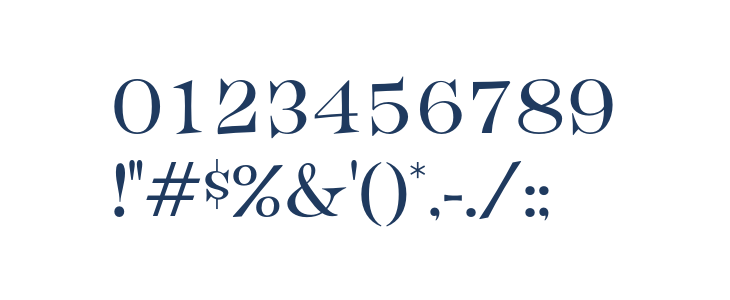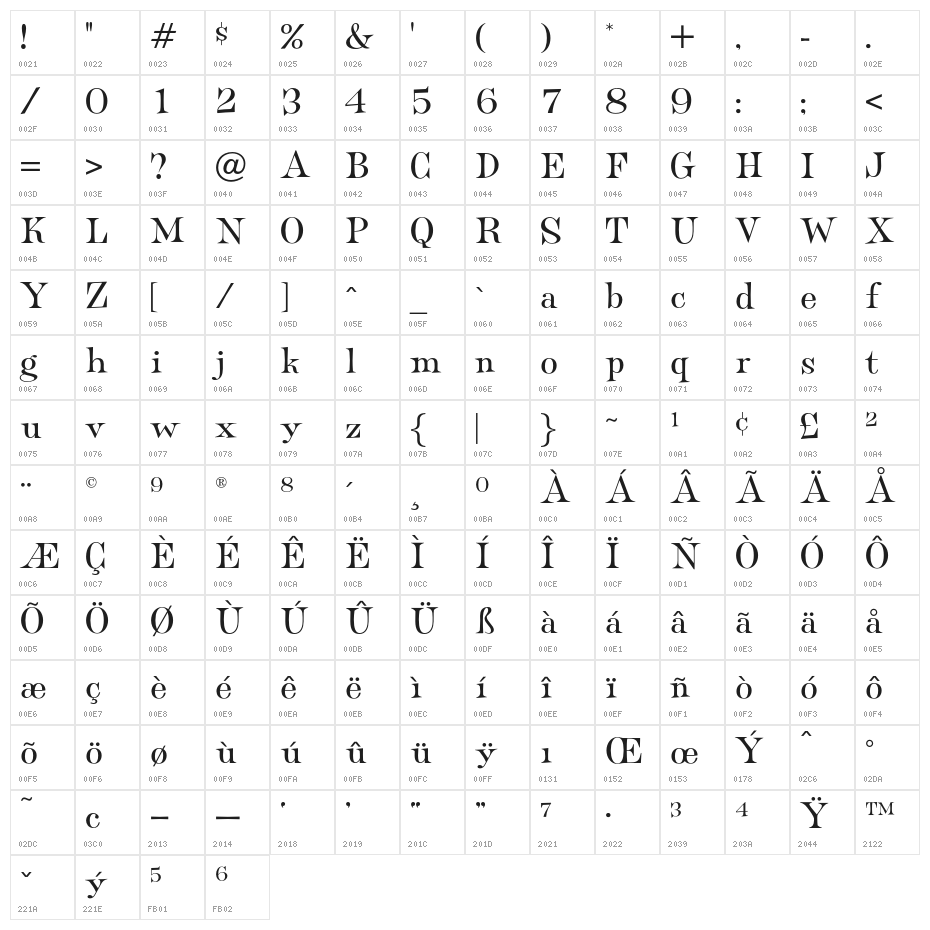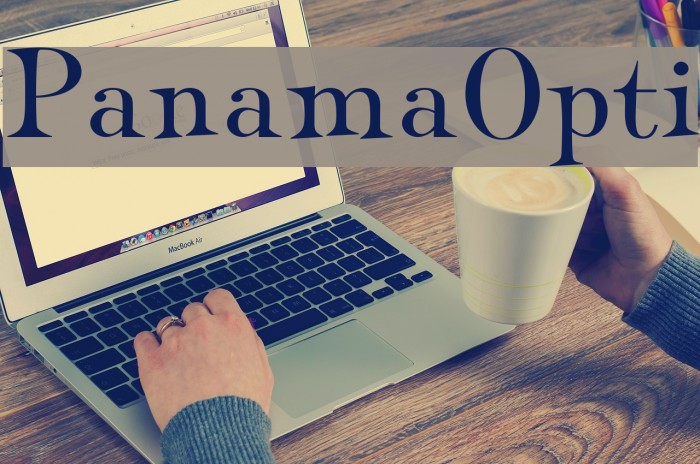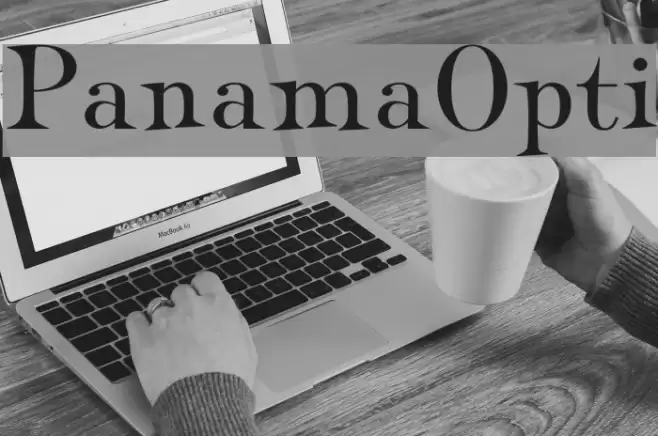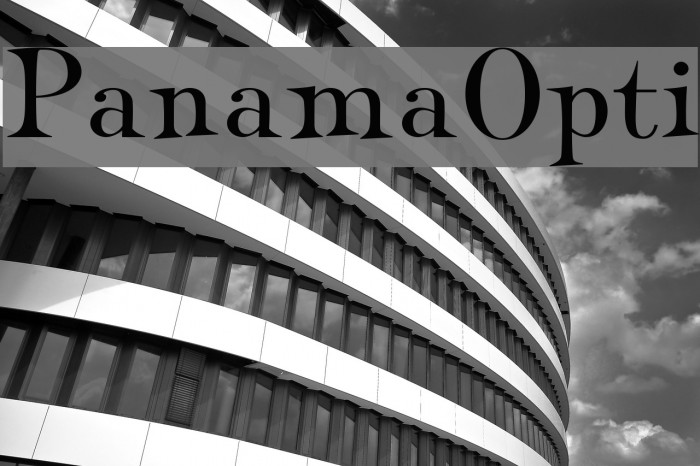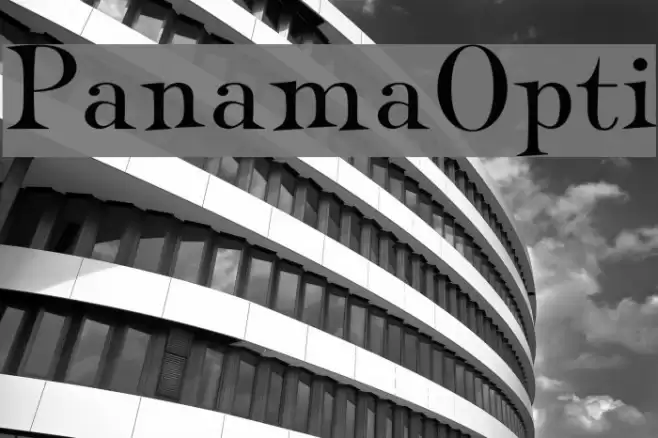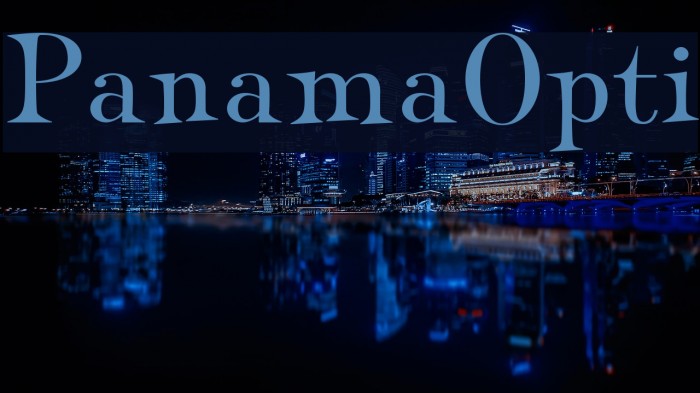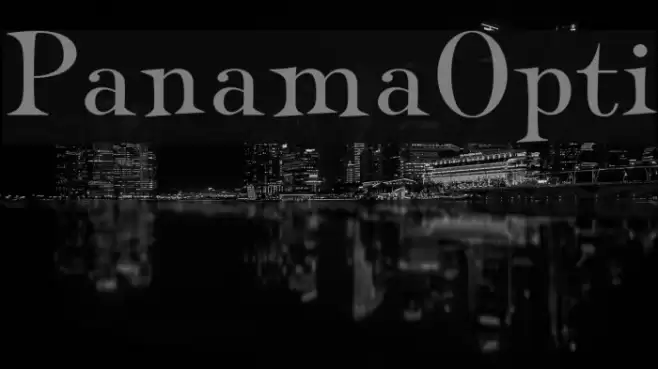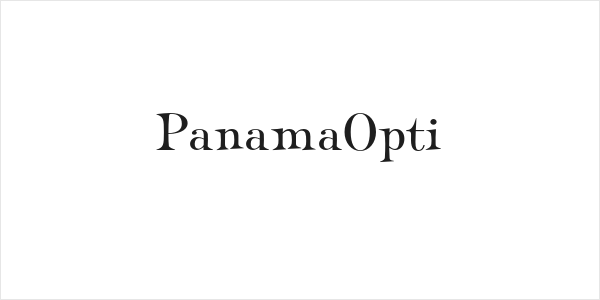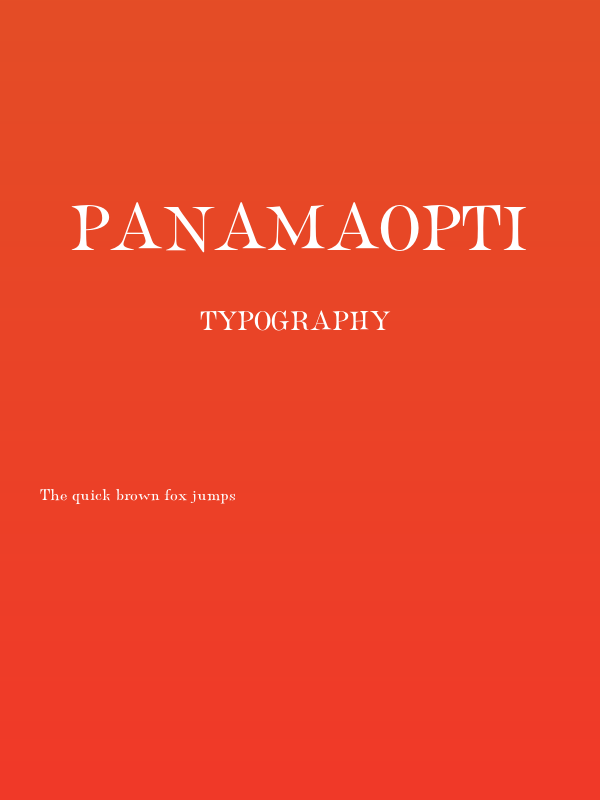
PanamaOpti Font
PanamaOpti Description
This font features a classic serif style with elegant, sweeping curves and sharp, defined edges. The uppercase letters exhibit a strong presence with their bold strokes and pronounced serifs, while the lowercase letters maintain a graceful flow, enhancing readability. The numerals are distinct and well-proportioned, complementing the overall aesthetic. Special characters are crafted with attention to detail, providing a cohesive look across all symbols. The font's design is reminiscent of traditional typography, offering a timeless appeal suitable for various applications.